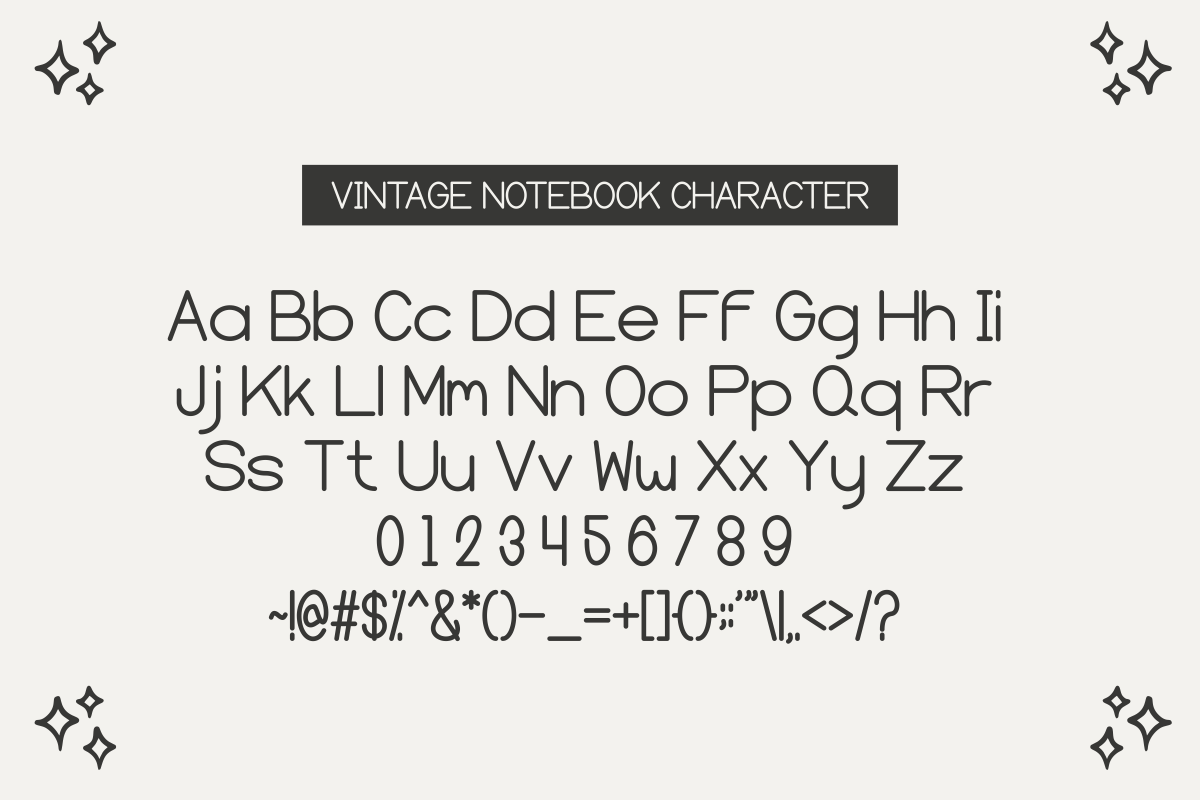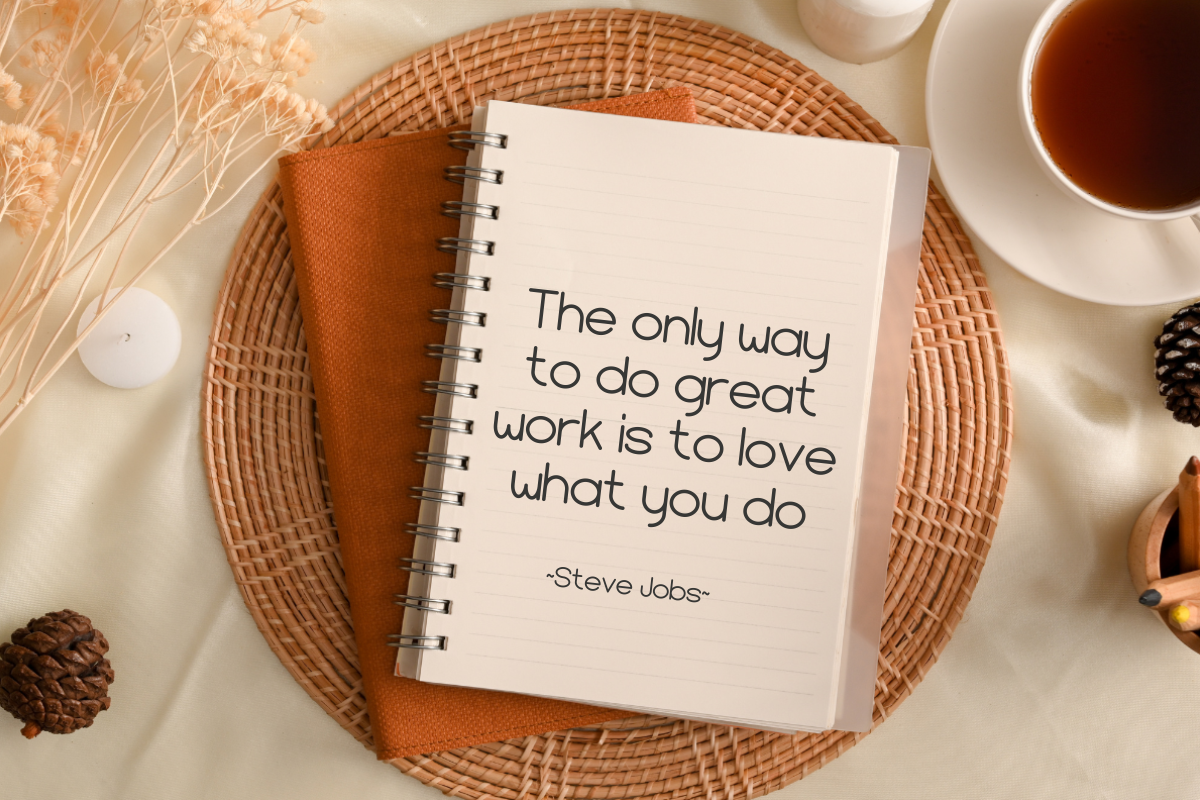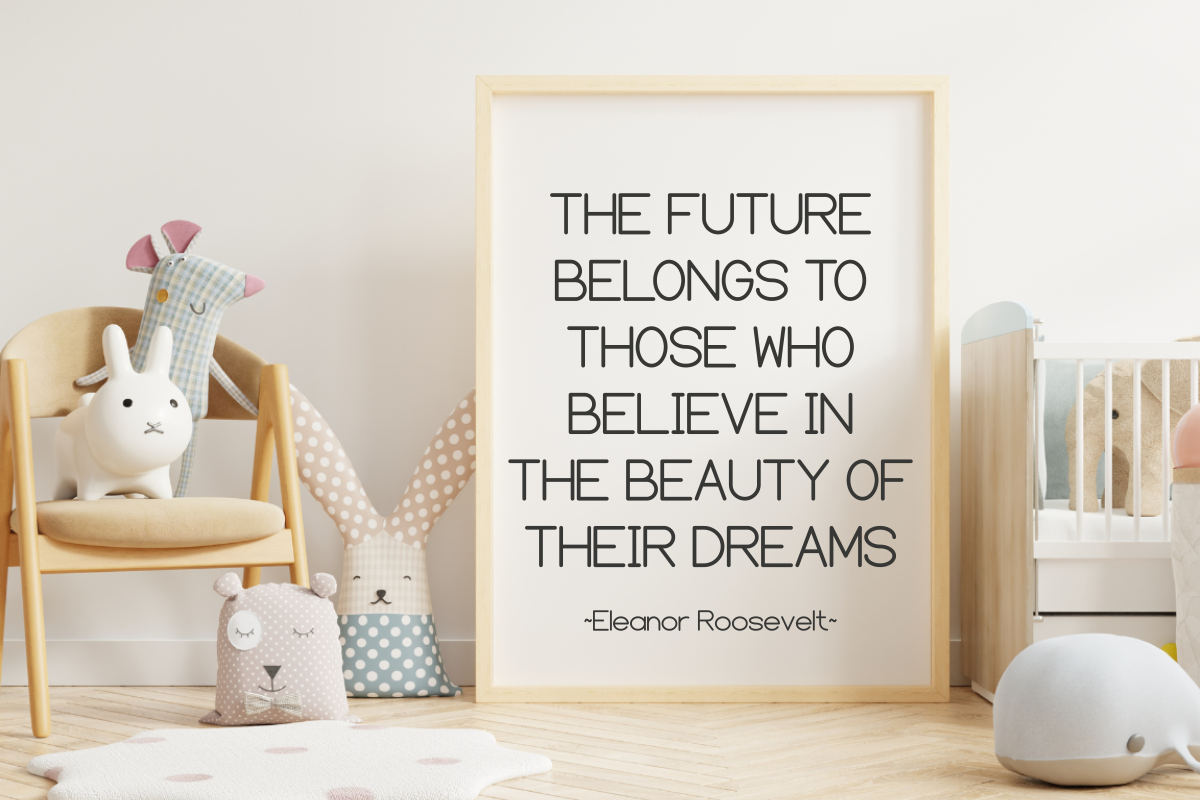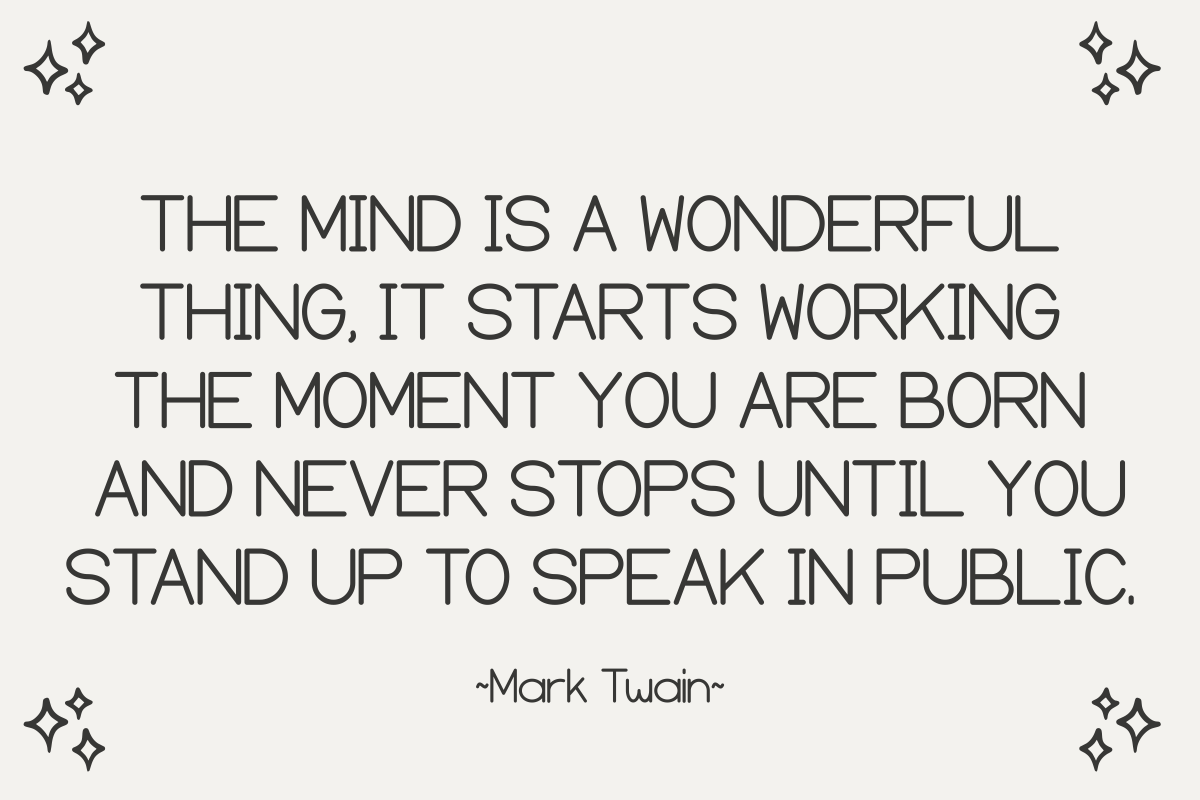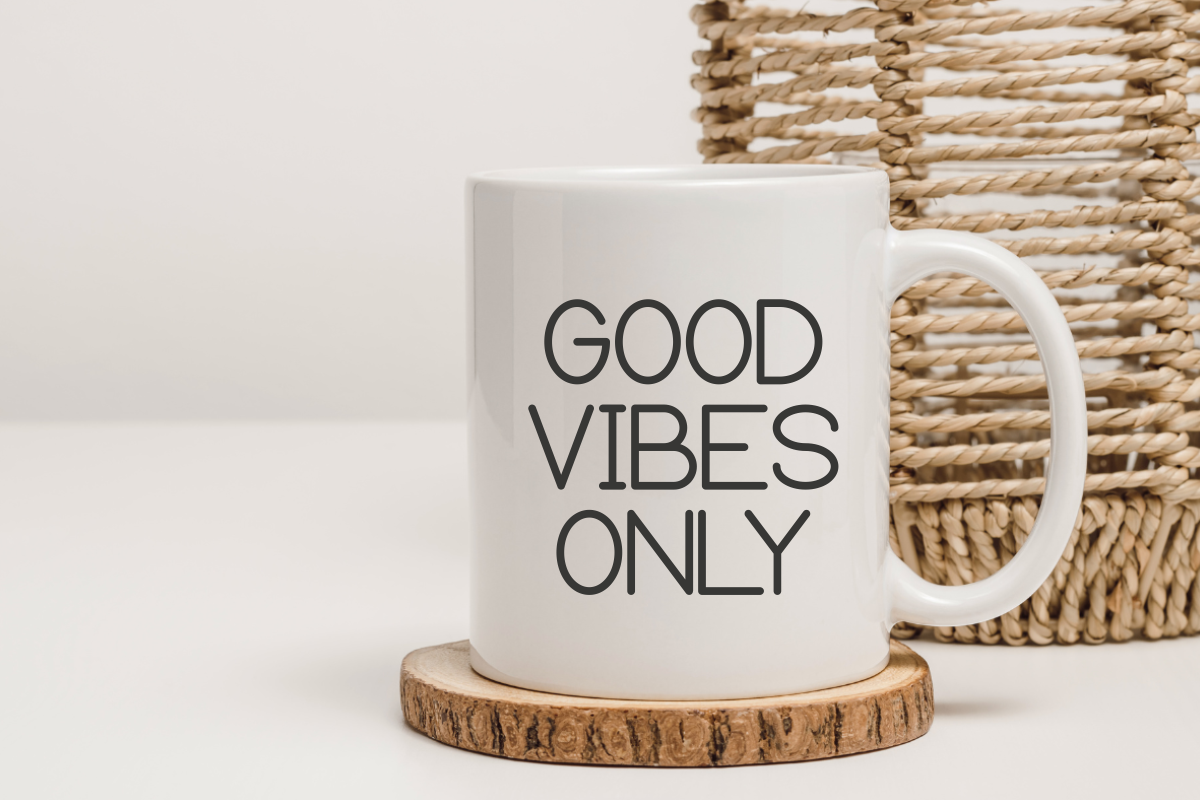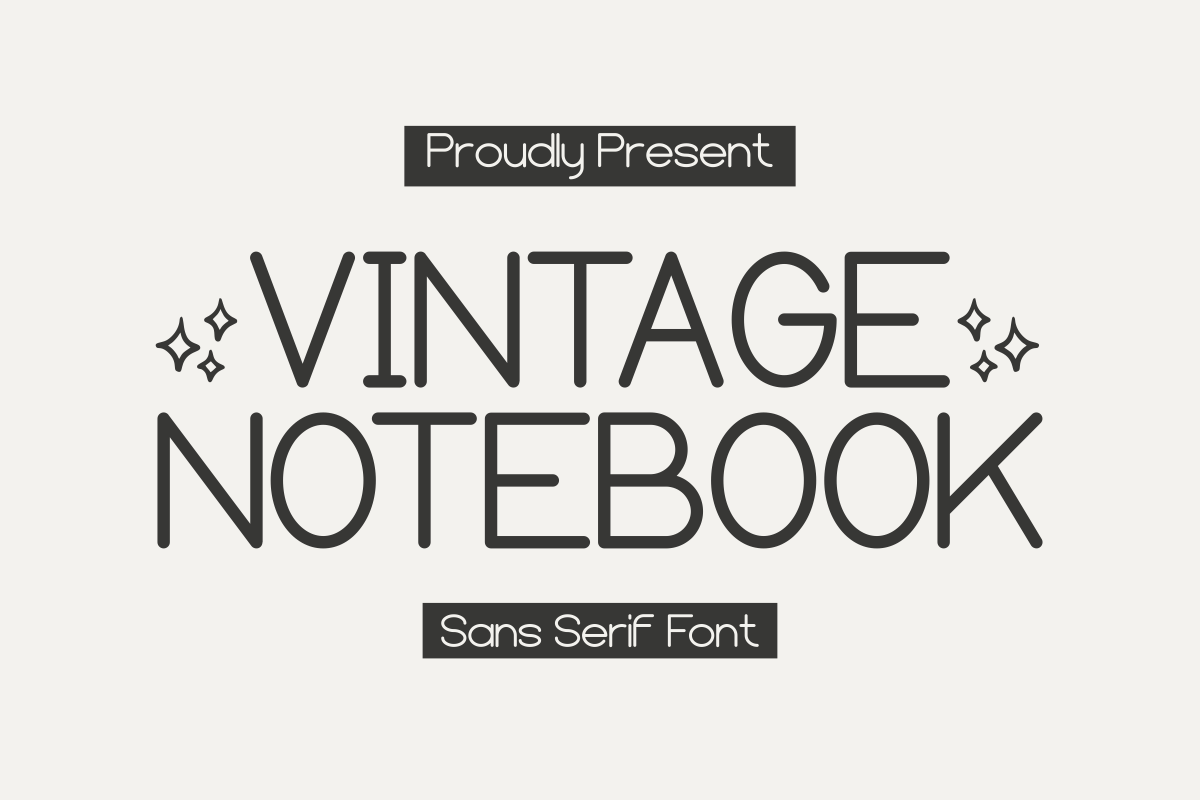
Vintage Notebook - Sans Serif Font
Vintage Notebook is a minimalist and clean sans serif font that exudes timeless elegance. Its simple yet sophisticated design is perfect for adding a touch of vintage charm to any project. Ideal for creating clean and modern designs, this font is sure to make a lasting impression.